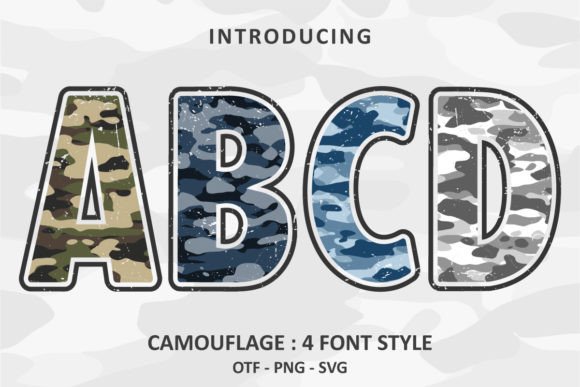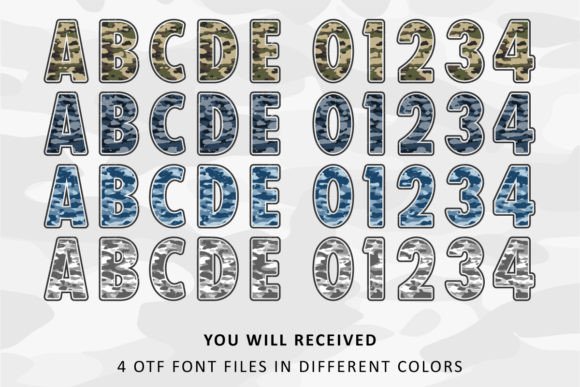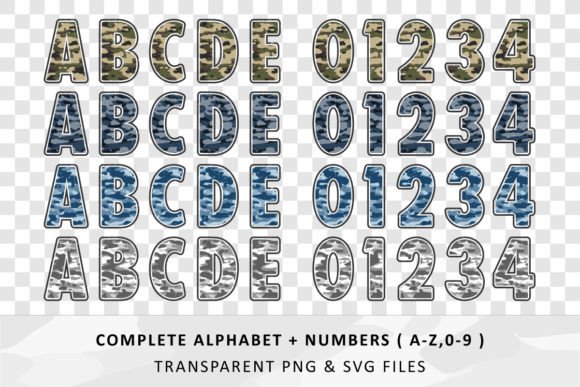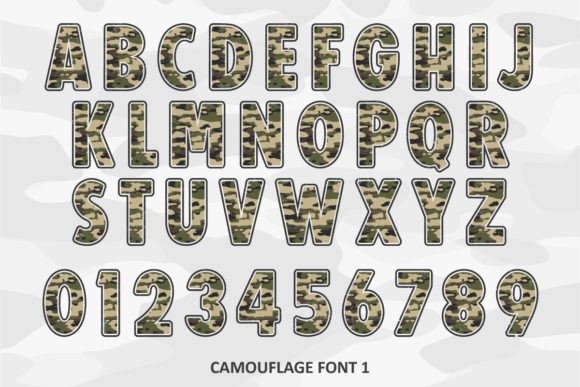
Camouflage Font
About the Camouflage Font
Explore the possibilities with Camouflage Font, a font that offers both beauty and functionality. Camouflage is a bold military camouflage font that boasts four distinctive patterns with numbers in retro army style that make your designs stand out as a cool and original-looking color font. Perfect for logotypes, headlines, corporate identity, brand identity, the apparel industry, posters, music, movies, games, magazines, books, comics, and cartoons. Add it confidently to your projects, and you will love the results.